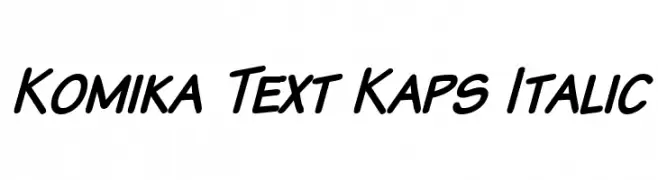
A playful, italicized handwritten font with smooth, rounded strokes.
A playful, handwritten-style font with an italic slant and smooth, rounded strokes.